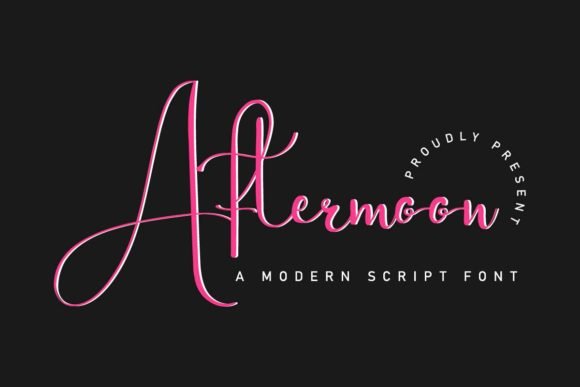
The Perfect Script for Your Creative Masterpiece
Have you ever found yourself staring at a blank page, trying to put your creative thoughts into words? You know, that moment when the blank slate feels daunting, and your imagination is racing with possibilities. For designers and creatives, this is a familiar feeling – a call to bring our ideas to life.
Enter Aftermoon Font, an elegant handwritten font designed to elevate your creative vision. Whether you’re crafting a post for Instagram or creating calligraphy scripts for DIY projects, Aftermoon Font will transform your ideas into stunning works of art. As a valuable addition to any designer’s toolkit, Aftermoon Font offers a level of sophistication and elegance that’s hard to find.
Aftermoon Font Key Features
- Font Style: Aftermoon Font is a modern, elegant script font, ideal for creating eye-catching headings and titles.
- Unique Characteristics: Aftermoon Font features intricate flourishes, subtle curves, and a touch of sophistication, making it perfect for luxury branding, high-end publications, and premium packaging designs.
Designer Review: Aftermoon Font
Aftermoon Font is an interesting choice for typography enthusiasts. Here’s my honest review.
- ✨ Elegant and modern design aesthetic: Aftermoon Font has a clean and sophisticated look that can elevate any digital project.
- ✨ Wide range of font styles: The font family includes several variations, making it versatile for different design applications.
- ⚠️ Limited language support: Aftermoon Font may not support certain languages or character sets, which can be a limitation for global designs.
- ⚠️ Some font weights may feel too similar: While the font family has several variations, some of the weights may blend together, making it challenging to differentiate between them.
Aftermoon Font is a solid choice for designers seeking a modern and elegant typography solution. However, its limitations in language support and font weight differentiation should be carefully considered before making a final decision.
The Aftermoon Font is ideal for creative projects that require a unique and elegant touch. Some common use cases include:
– Branding and logo design
– Book covers and magazine titles
– Social media graphics and advertisements
Alternatives to Aftermoon Font for Designers
1. Museo Sans
Museo Sans is a sans-serif font that offers a modern and clean look. It’s ideal for use in corporate branding, digital products, and editorial content. Museo Sans has a similar feel to Aftermoon Font, but with a more geometric and modern aesthetic.
Comparison: Museo Sans is more modern and geometric compared to Aftermoon Font’s more vintage and distressed look.
Great Vibes is a script font that offers a playful and elegant look. It’s perfect for use in creative projects, invitations, and branding materials. Great Vibes has a more fluid and cursive feel compared to Aftermoon Font’s more distressed and rough look.
Comparison: Great Vibes is more fluid and cursive, while Aftermoon Font is more distressed and rough.
Alex Brush is a script font that offers a elegant and refined look. It’s ideal for use in branding materials, invitations, and creative projects. Alex Brush has a more refined and sophisticated feel compared to Aftermoon Font’s more distressed and vintage look.
Comparison: Alex Brush is more refined and sophisticated, while Aftermoon Font is more distressed and vintage.